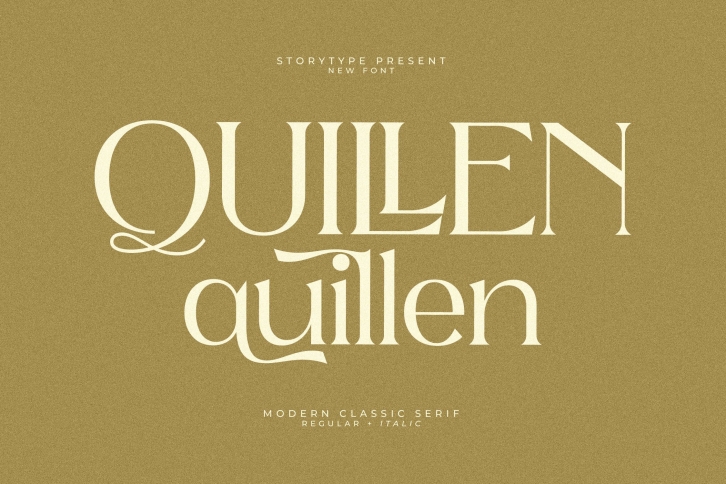
Quillen is a beautiful font that was designed by Pricilia Design. It's a great choice for designers and creatives who need such a font. It was released on November 12, 2022 and the file size is 2.56 MB. Quillen may give a more youthful, expressive and casual look to your project. It is a very beautiful, refined, elegant, and high-quality font.